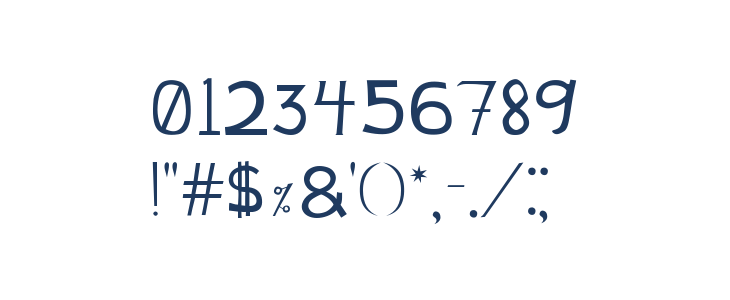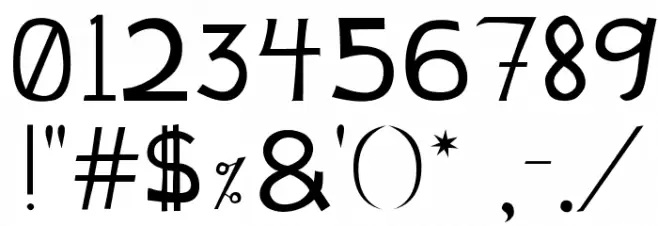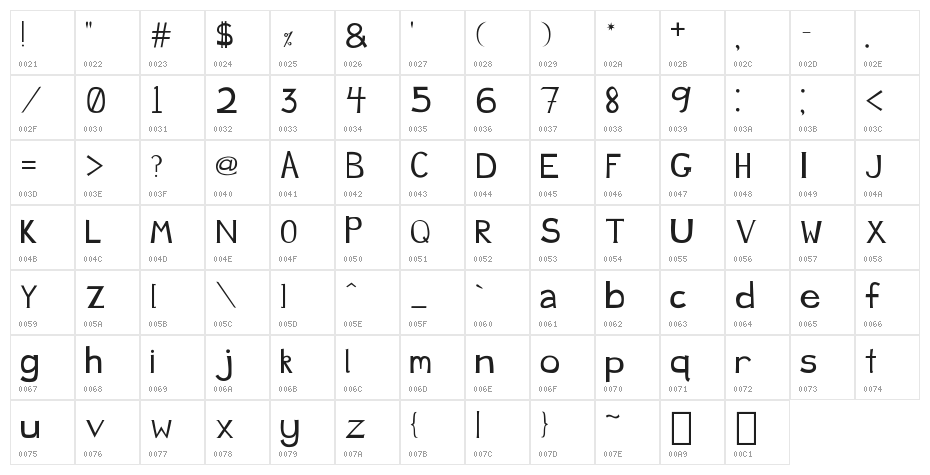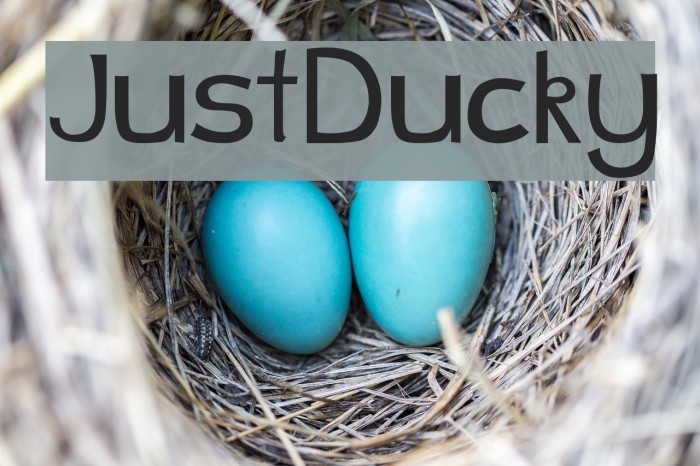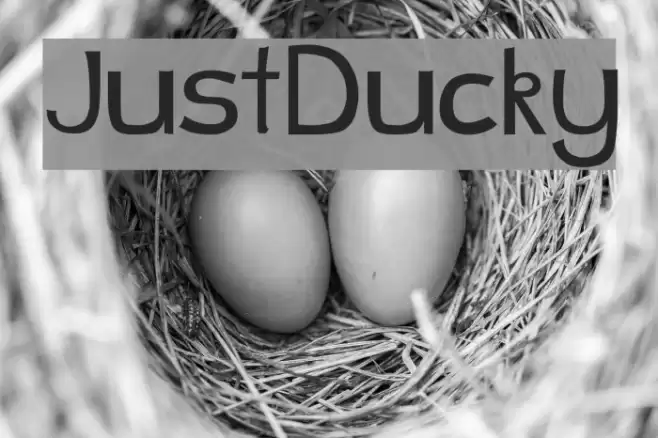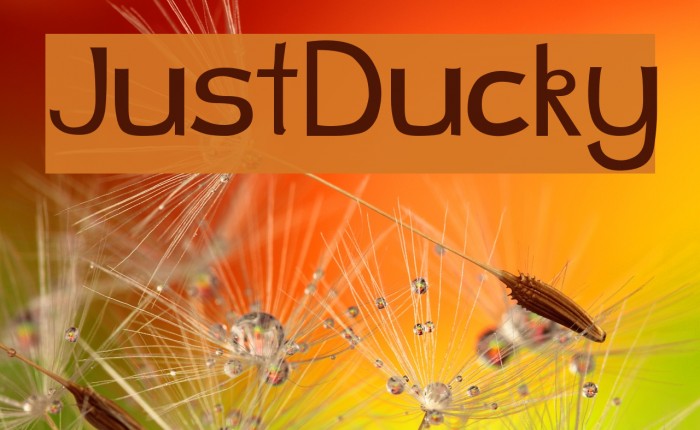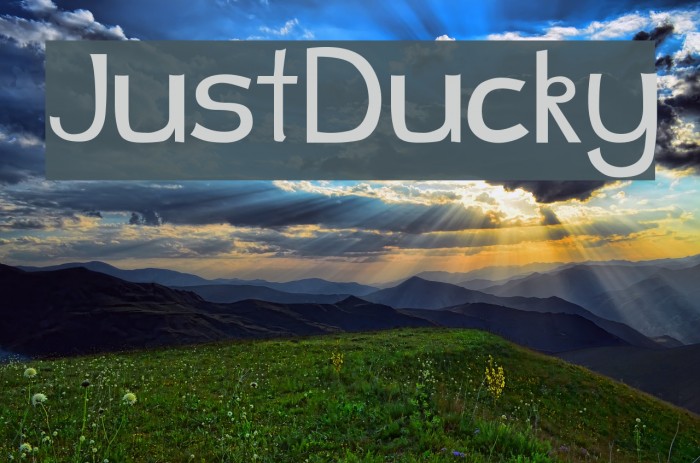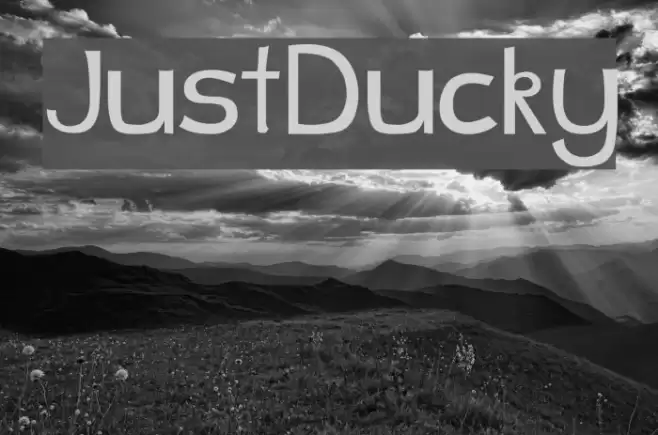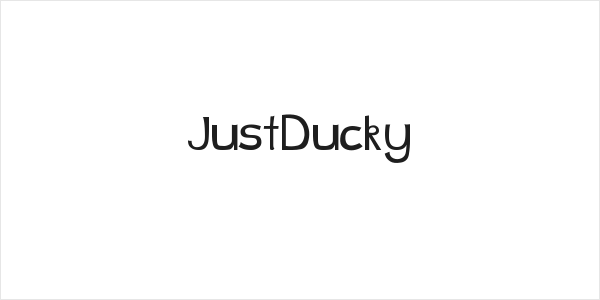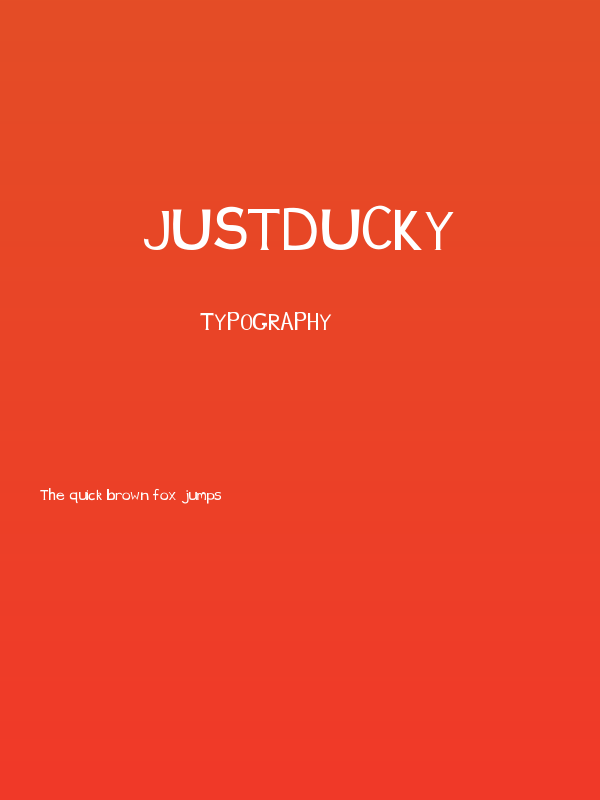
JustDucky Font
JustDucky Description
This font features a playful and quirky design, characterized by its unique and slightly irregular letterforms. The uppercase letters are bold and distinct, with some characters like 'G' and 'Q' having unconventional strokes that add to its charm. The lowercase letters maintain a consistent style, with rounded edges and a whimsical flair, particularly noticeable in letters like 'g' and 'y'. The numerals are bold and slightly exaggerated, making them stand out. Special characters are creatively designed, maintaining the overall playful theme. This font is ideal for projects that require a fun and informal touch, such as children's books, playful branding, or creative posters.
Overall StylePlayful, Quirky
Proposed ProjectsChildren's books, playful branding, creative posters, informal invitations.